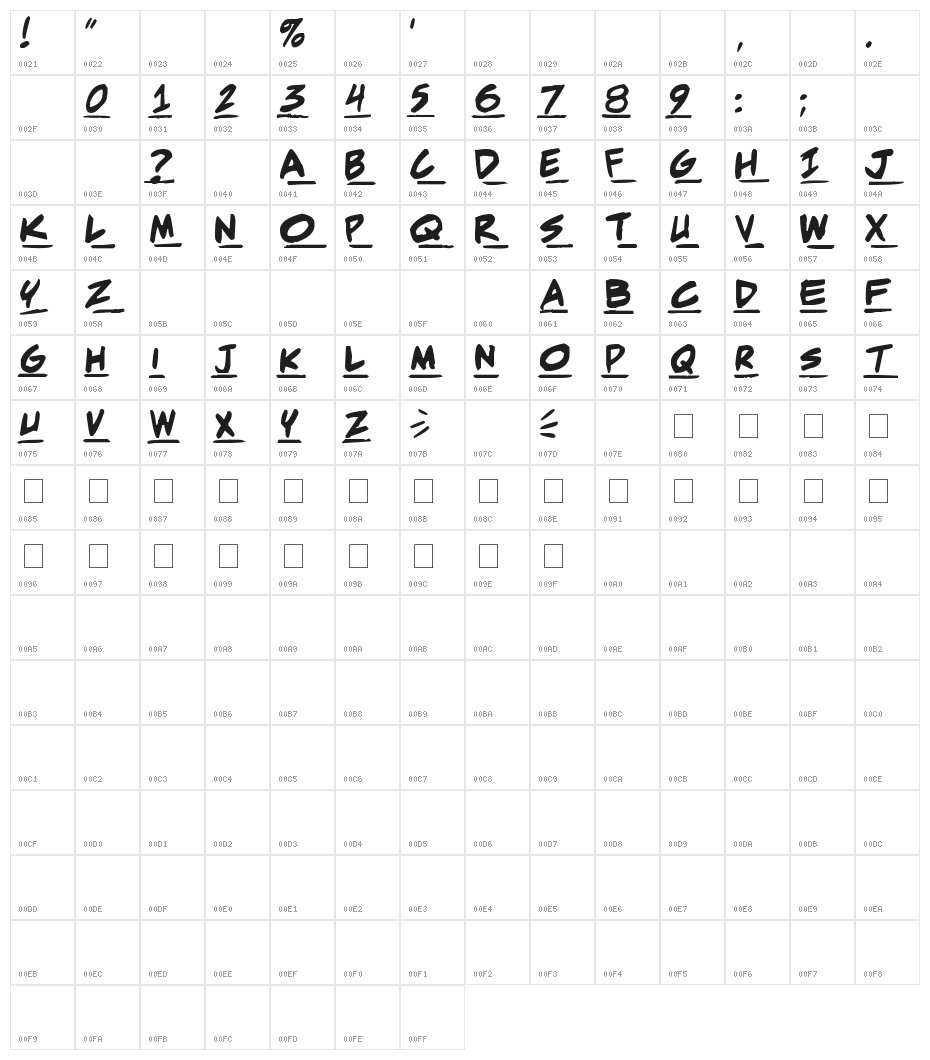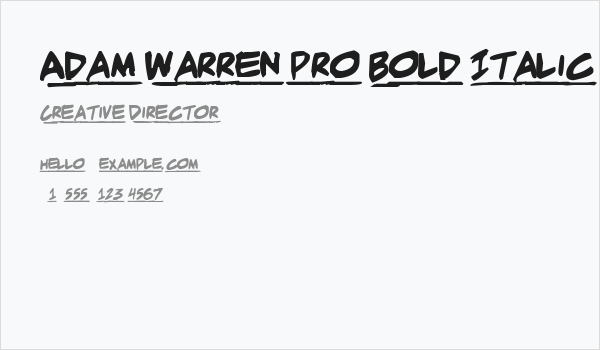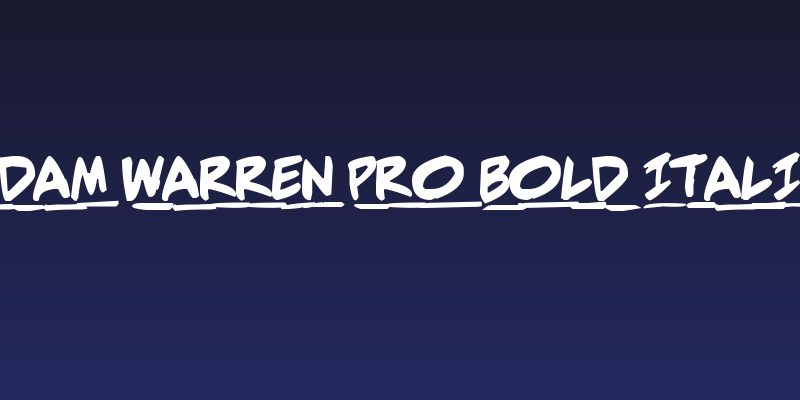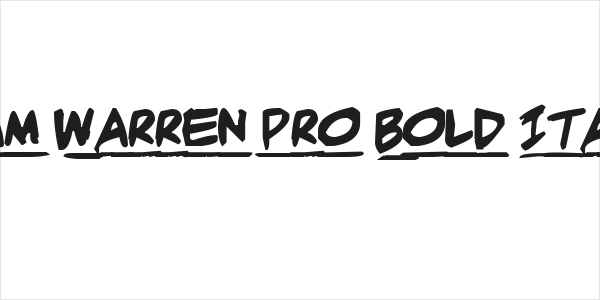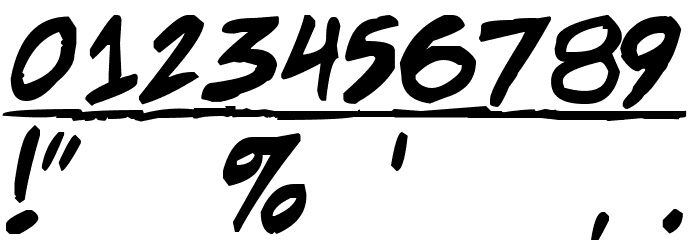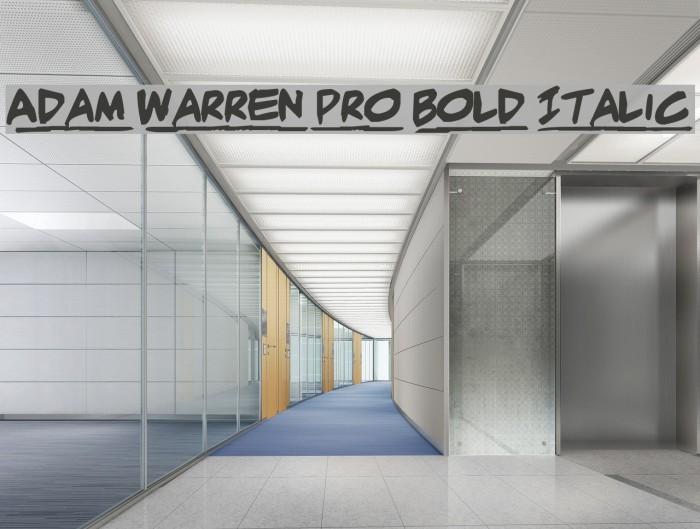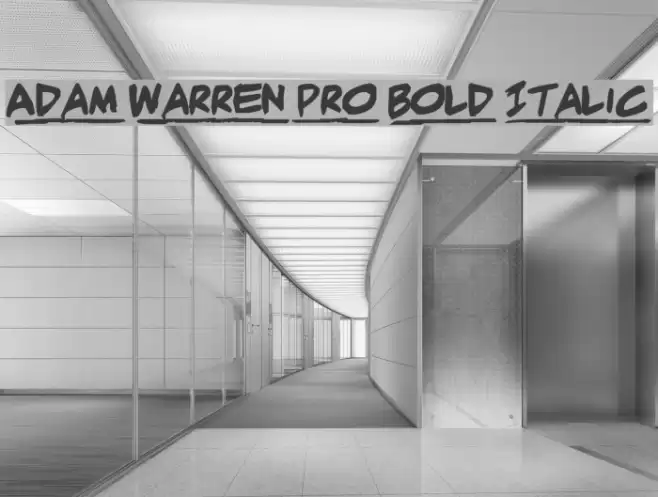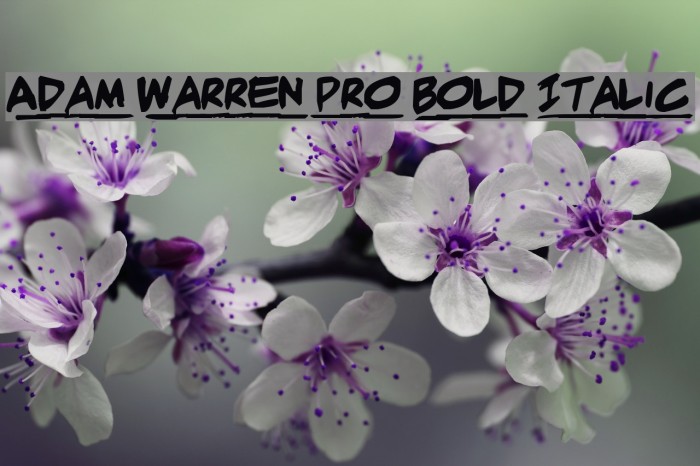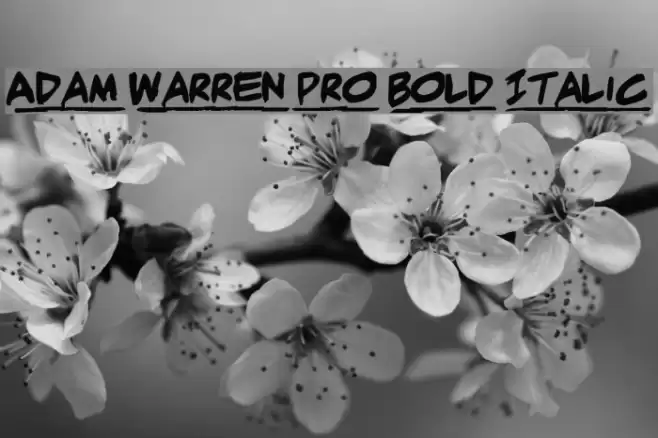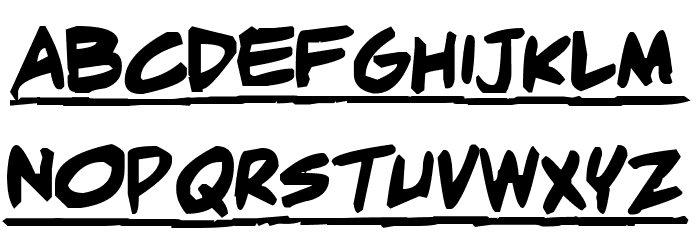
Adam Warren pro Bold Italic Font
✎ Comic
Adam Warren pro Bold Italic Description
This font exhibits a bold and dynamic handwritten style, characterized by its thick strokes and slightly slanted letters, giving it an energetic and informal appearance. The uppercase and lowercase letters maintain a consistent weight, contributing to the font's boldness. The numbers and special characters follow the same stylistic approach, ensuring uniformity across all glyphs. The font's playful and casual nature makes it ideal for projects that require a personal touch or a sense of spontaneity. Its boldness ensures readability, while the italic slant adds a sense of movement and flair.
| Use Case | Headlines, Logos, Informal Text |
| Proposed Projects | Ideal for comic books, posters, greeting cards, and informal branding projects. |